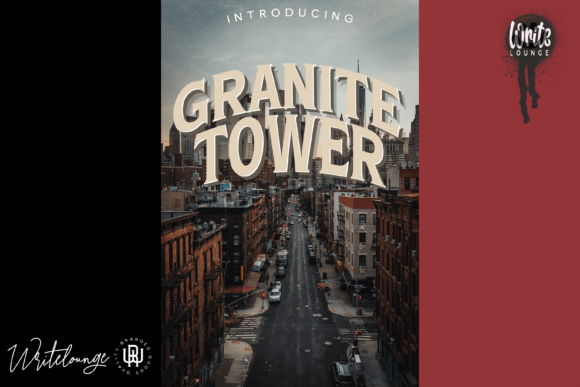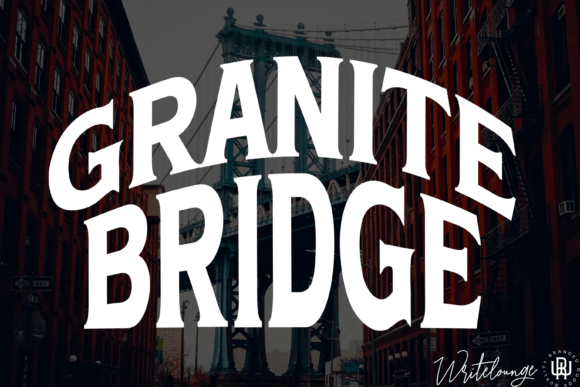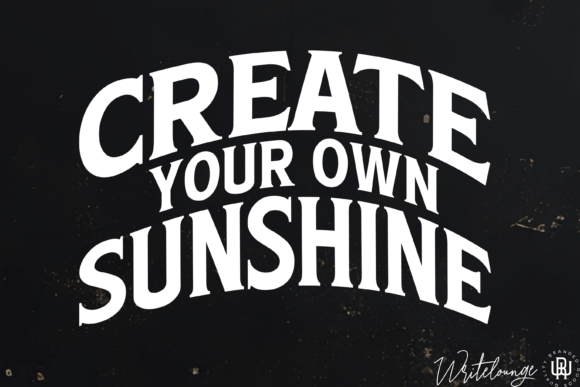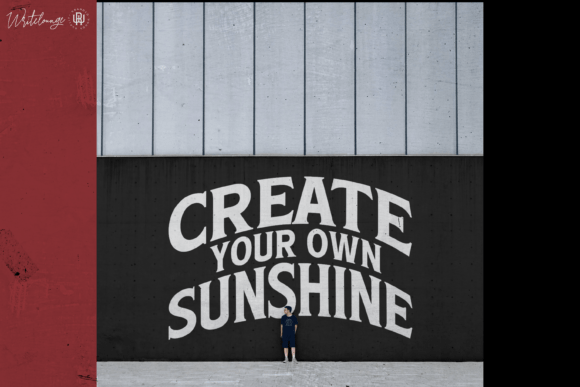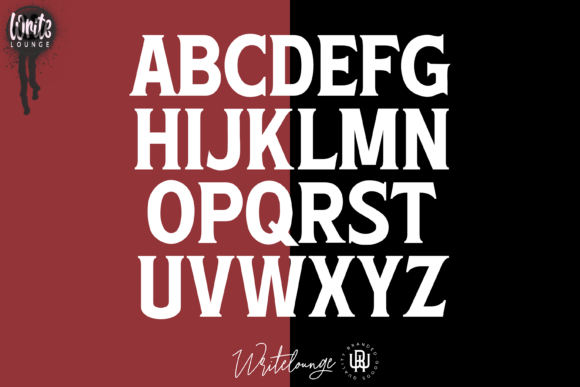
Introduction to Granite Bridge Font
You’re staring at a blank canvas, trying to come up with the perfect design for your next creative project. The words, the colors, the typography – everything needs to come together in harmony. And that’s when you remember, the right font can make all the difference. A bold, high-quality font that grabs attention and leaves a lasting impression.
Enter the Granite Bridge Font, a stunning display serif designed to elevate your visuals and take your branding to the next level. With its sturdy shapes and modern feel, this font is perfect for designers who want to add a touch of classic elegance to their work. Whether you’re creating merchandise, packaging, or signage, the Granite Bridge Font is a valuable resource that will give your design a confident, professional edge.
Key Features of Granite Bridge Font
- High-quality design resource for creative projects: Granite Bridge Font offers a unique and stylish aesthetic that can elevate any design.
- Medium weight and x-height: This font has a medium weight and x-height, making it suitable for a wide range of design applications, from body text to headlines.
- Unique characteristics: The font’s unique blend of modern and classic elements makes it an excellent choice for designers looking to add a touch of sophistication to their creative projects.
Honest Review: Granite Bridge Font
I recently stumbled upon the Granite Bridge Font while searching for the perfect design resource for a creative project. I was impressed by its high quality and decided to share my honest thoughts on this fantastic font.
- ✨ High-quality design with crisp lines and smooth edges.
- ✨ Supports multiple weights, making it versatile for various design needs.
- ✨ Transparent background, allowing for seamless integration with any design.
Any limitations:
- ⚠️ Limited character set, which might be a concern for designers working on projects that require a wide range of characters.
- ⚠️ May not be suitable for projects that require a lot of customization, as it’s a relatively straightforward font.
Overall, I’m impressed with the Granite Bridge Font, and I would highly recommend it for any design project. Its high quality, versatility, and free download make it an excellent choice for designers.
The Granite Bridge Font is a high-quality design resource perfect for any creative project. With its unique and elegant style, it’s ideal for adding a touch of sophistication to your designs.
Getting the Most Out of Granite Bridge Font
For the best results, use the Granite Bridge Font with a transparent background to create a seamless and professional look. Experiment with different font sizes, colors, and styles to add depth and visual interest to your designs.
The Granite Bridge Font is perfect for:
- Menu boards and signage